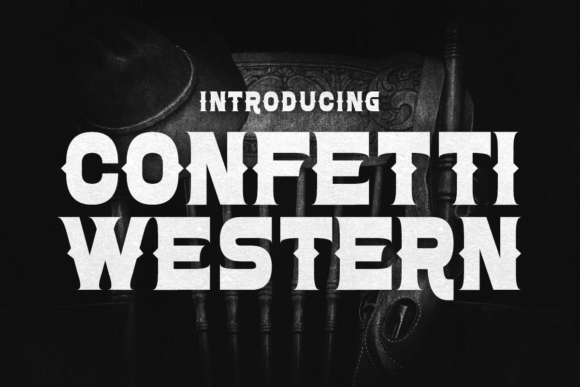
Confetti Western Font: A Bold Display Font for Vintage Logo Design
About the Confetti Western Font
We are excited to introduce Confetti Western Font, a must-have typeface for any serious designer. Confetti Western is a western looking font which can be used to give your design an authentic feeling.
Confetti Western’s bold, playful strokes make it ideal for headlines, posters, and branding projects requiring a touch of vintage Western flair. It works exceptionally well for short, impactful text on packaging or signage, conveying a sense of rugged authenticity. However, its decorative nature makes it unsuitable for body text or UI elements where readability is paramount. Long paragraphs set in this font would be difficult to read.
Consider pairing Confetti Western with a clean sans-serif like Montserrat for a balanced contrast, or a classic serif like Playfair Display for a more traditional feel. For a more modern approach, a geometric sans-serif such as Futura would create a striking juxtaposition. These pairings enhance readability while retaining the font’s unique Western character.
The overall personality is energetic and bold, yet maintains a friendly approachability. It’s perfect for brands associated with adventure, Americana, or Western-themed products, conveying a sense of rugged charm and nostalgic appeal.
Confetti Western Font Usage Examples
Confetti Western Font Example